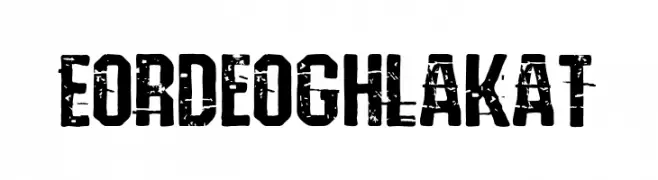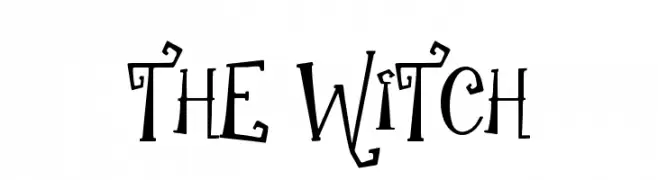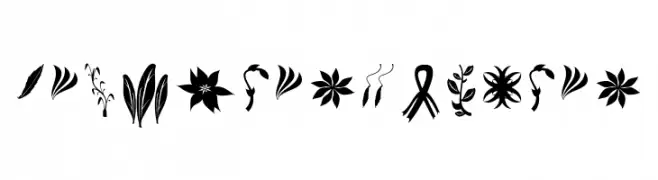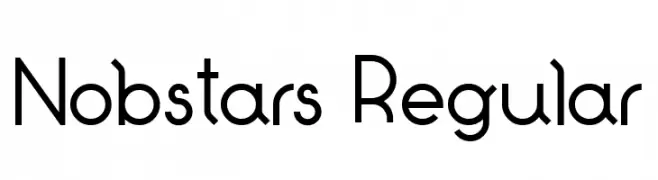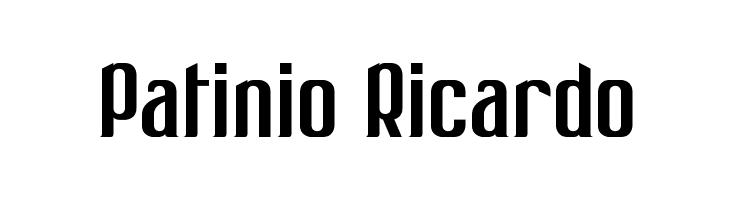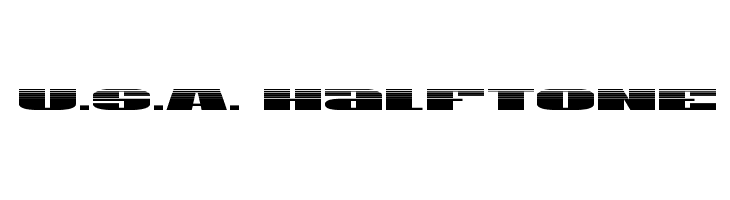
A bold, distressed font with a rugged, vintage appearance.
A whimsical and playful font with quirky, irregular letterforms and magical embellishments.
A decorative floral and botanical dingbat collection.
A bold, jagged font with a horror-inspired, dramatic style.
A modern, cursive font with elegant, flowing letterforms.
A classic, elegant script font with flowing, connected letterforms and high contrast.
A futuristic, italic font with a chrome-like, three-dimensional outline.
A playful, hand-drawn font with abstract, face-like characters.
A bold, geometric font with sharp angles and a futuristic style.
A modern, geometric font with clean lines and rounded edges.